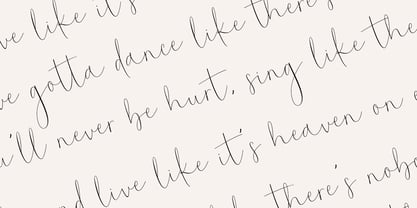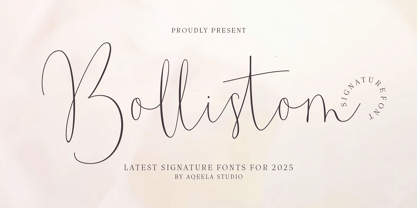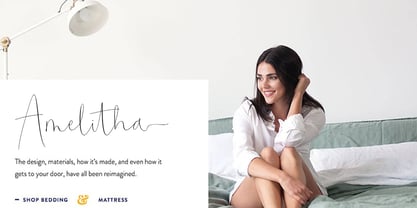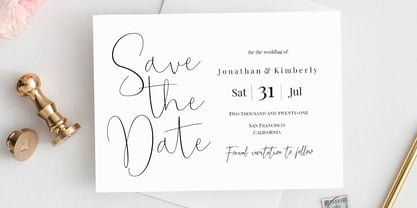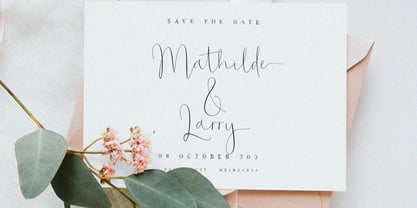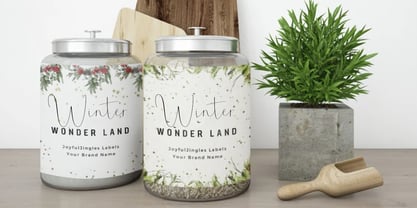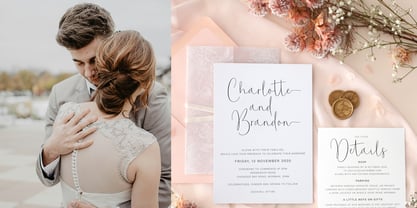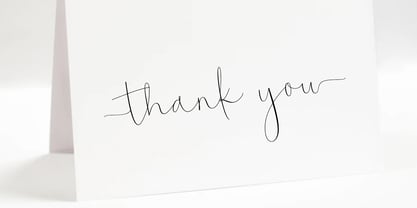
Bollistom
by Aqeela Studio
The Bollistom Font Family was designed by Muhammad Nasir and published by Aqeela Studio. Bollistom contains 1 styles. More about this family
The Bollistom Signature Luxury Font embodies elegance, sophistication, and effortless style. Designed with a sleek, handwritten script vibe, this font captures the essence of modern minimalism while exuding a timeless, chic aesthetic. Its fluid, organic curves mimic the flow of a signature, giving it a personalized, bespoke touch perfect for branding, invitations, and high-fashion design.
Bollistom balances readability with a luxurious flair—making it versatile for everything from wedding designs to high-end product logos or editorial layouts. Its graceful ascenders and perfectly weighted strokes evoke class, confidence, and professionalism while maintaining warmth and approachability. A signature font for brands that value authenticity, attention to detail, and creativity.
Whether used in elegant fashion campaigns, sleek business presentations, or personalized creative projects, Bollistom Signature Luxury Font offers sophistication at its finest, effortlessly elevating any design it graces.
Designers: Muhammad Nasir
Foundry: Aqeela Studio